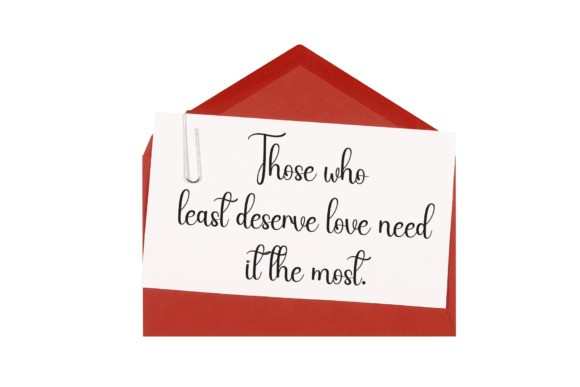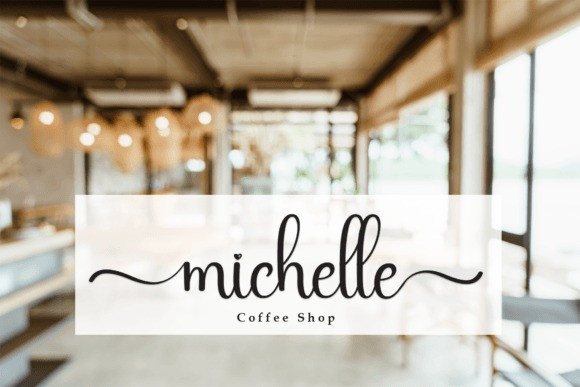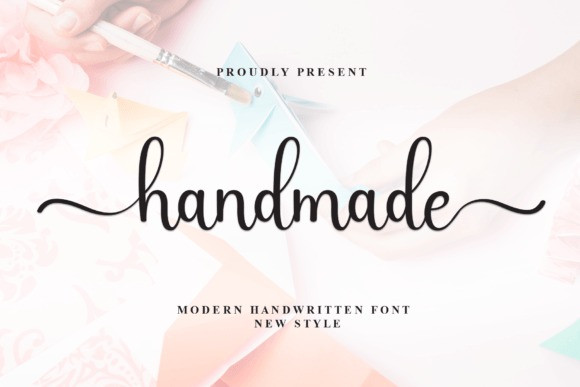
Handmade Handwriting Type
Handmade Handwriting Type is a sweet and friendly handwritten font that twinkles with innocence and warmth. With tender letterforms and a playful aura, it captures the charm of childhood dreams. Ideal for projects seeking a lighthearted and endearing aesthetic, Handmade adds a delightful and nostalgic touch to your creative expressions.